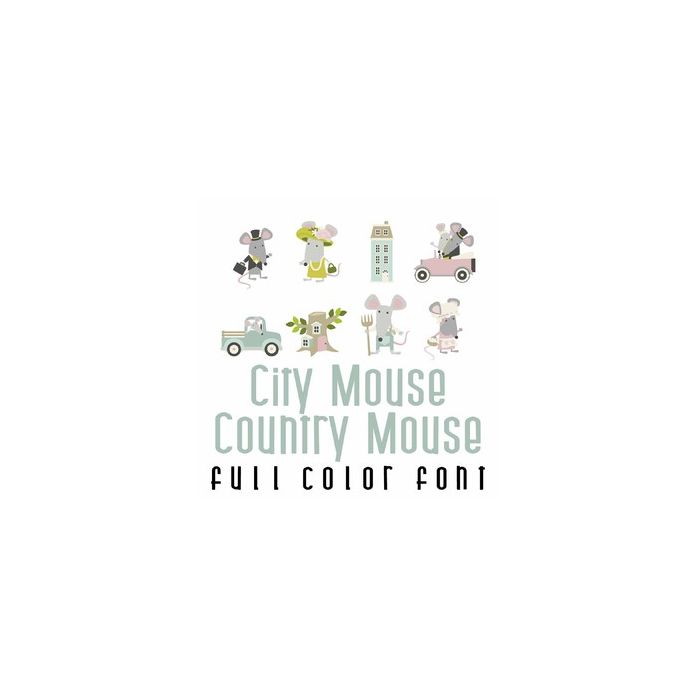
This adorable full-color doodlebat font features 26 adorable mice dressed for the country and city.. Perfect for cards, crafts, gifts, decor, scrapbook pages, planner stickers, and more!